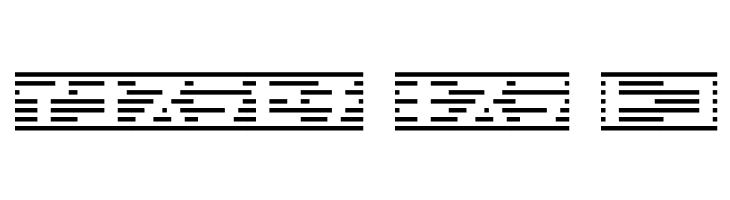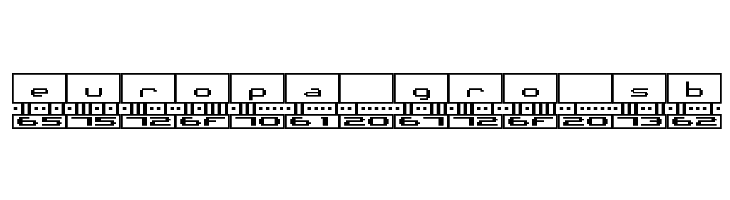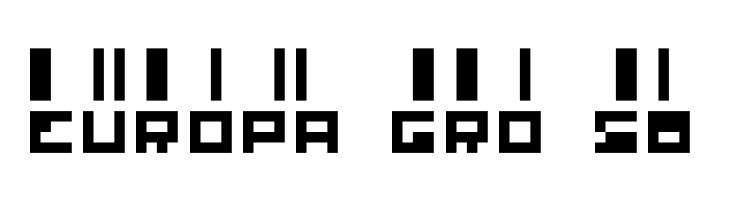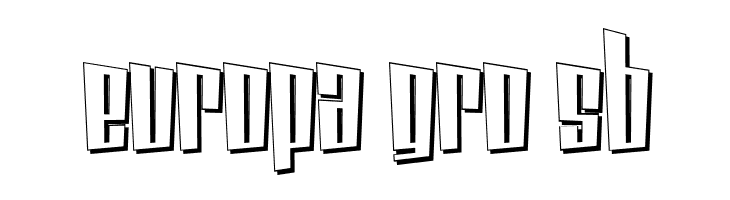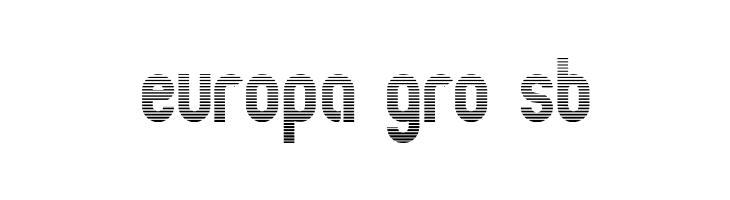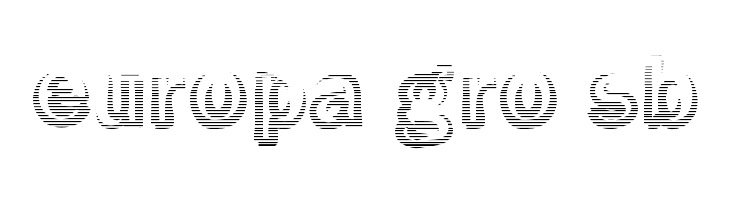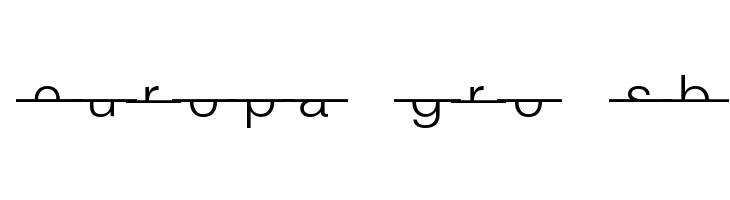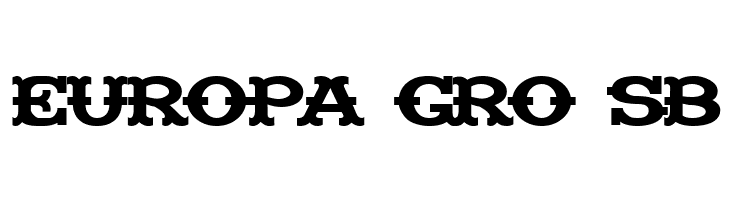
A digital, binary-inspired font with a geometric, pixelated style.
A bold, three-dimensional shadow font with a modern, geometric style.
A modern, striped font with bold geometric shapes and a dynamic linear texture.
A modern, minimalist font with a unique strikethrough design.
A bold, decorative font with a unique bar motif across characters.